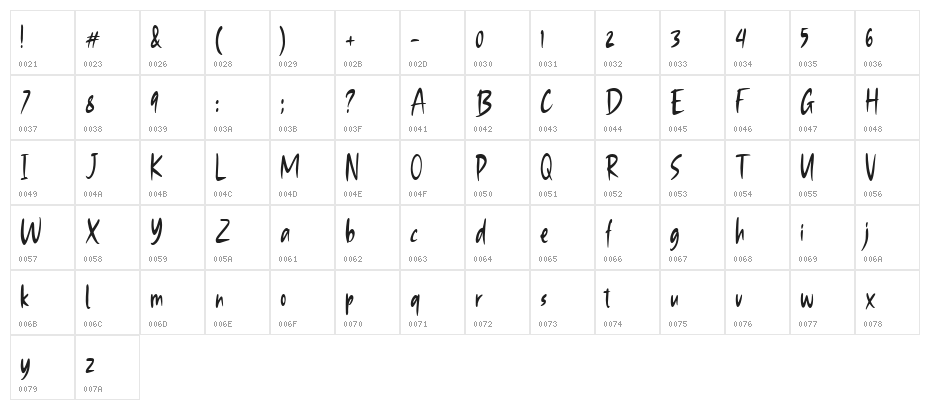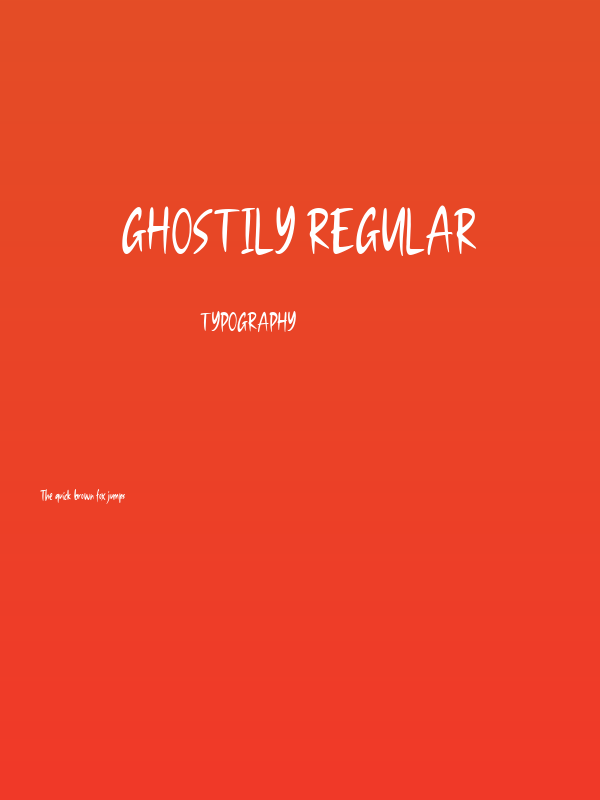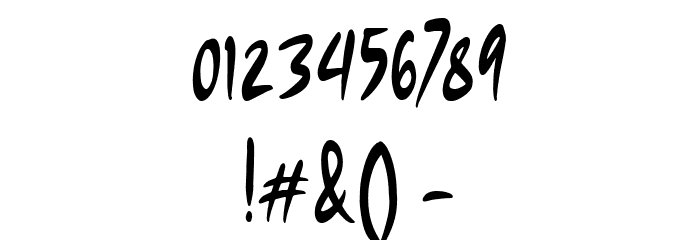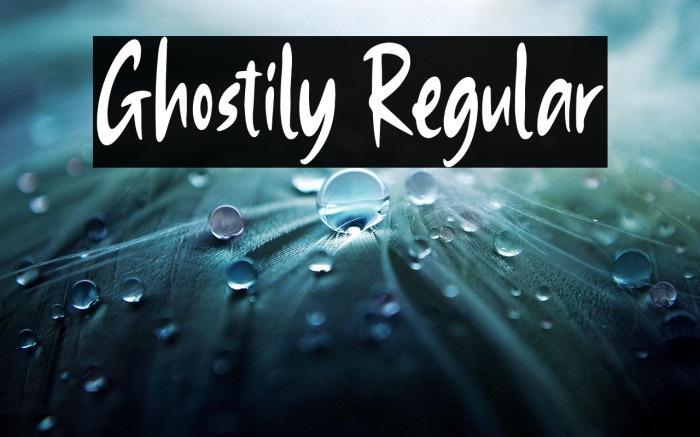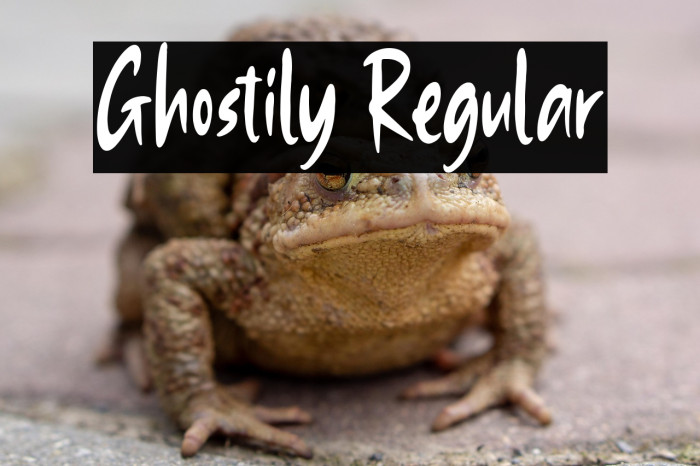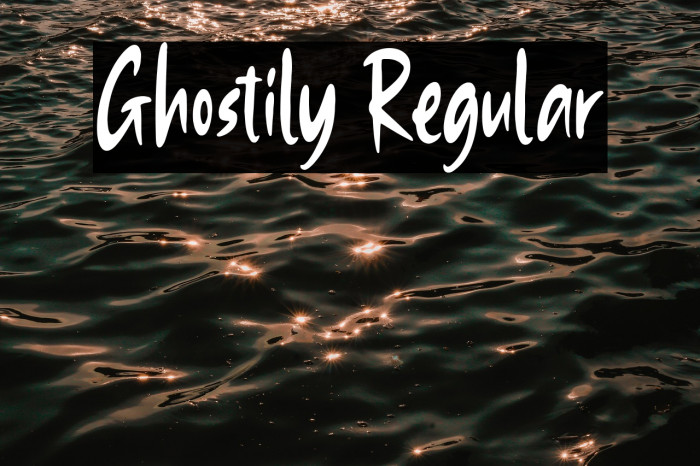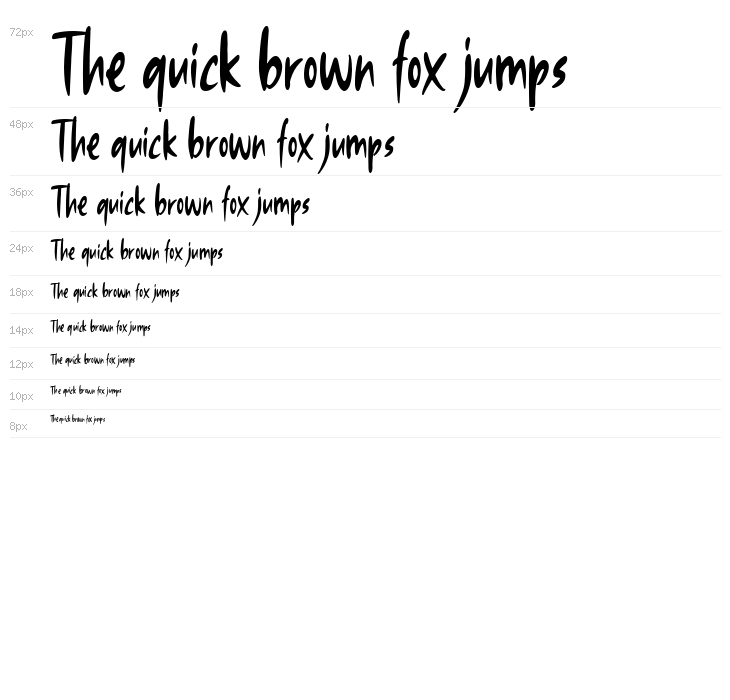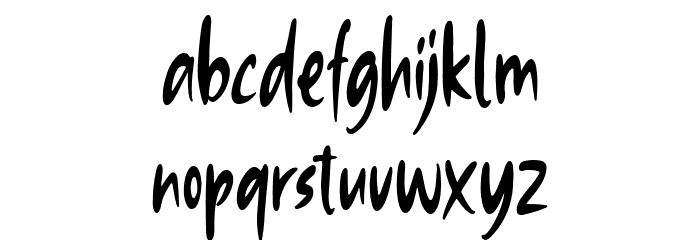
Ghostily Regular Font
Ghostily Regular Description
This font features a playful and energetic handwritten style, characterized by its bold and slightly irregular strokes. The letters have a lively and dynamic appearance, with varying thickness that adds a sense of movement and personality. The uppercase letters are tall and slightly narrow, while the lowercase letters maintain a consistent flow with rounded edges. The numbers and special characters complement the overall style, making it versatile for creative projects. Its informal and friendly look makes it suitable for designs that require a personal touch.
| Proposed Projects | Ideal for greeting cards, posters, social media graphics, and branding projects that require a personal and informal touch. |